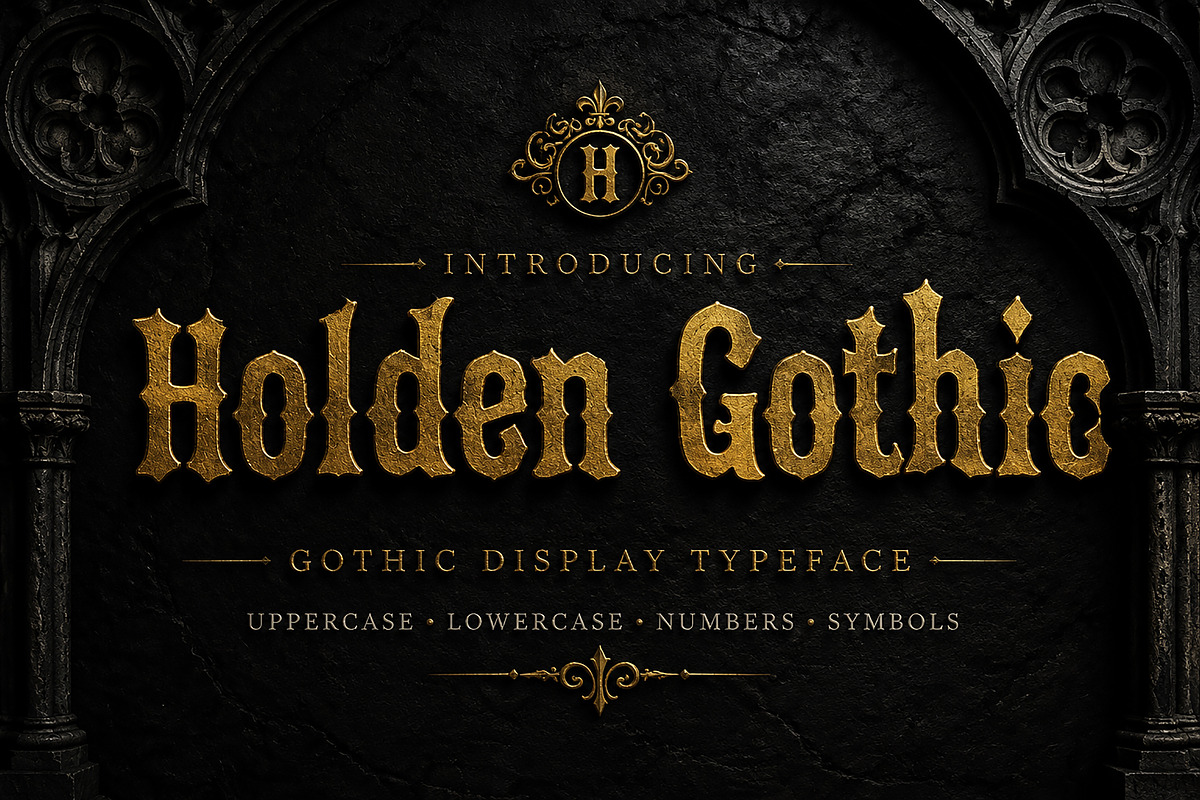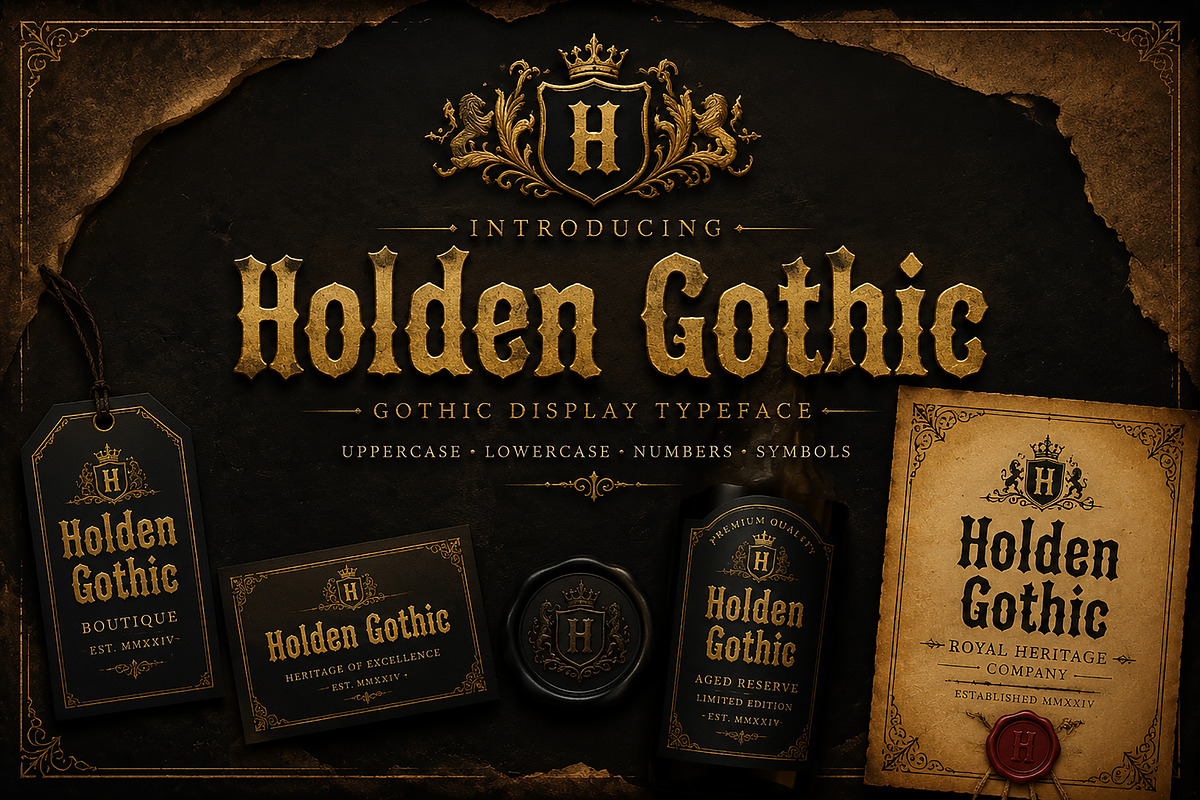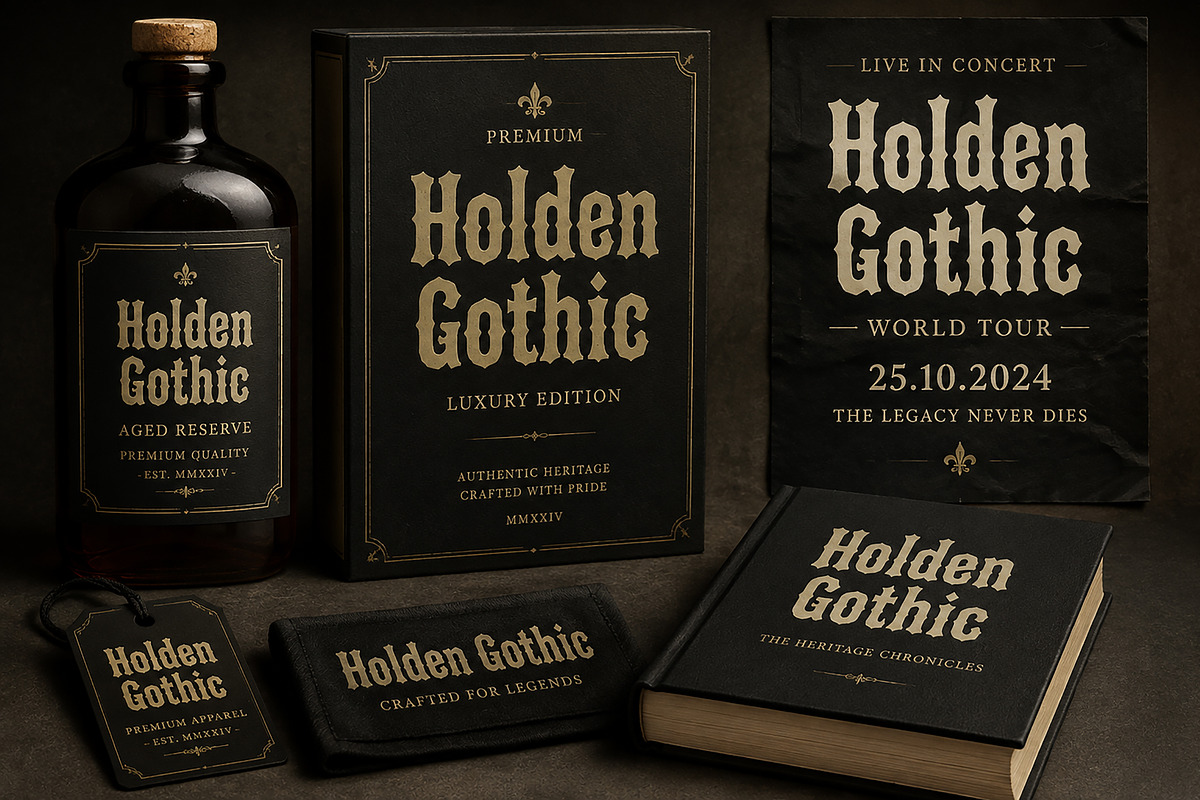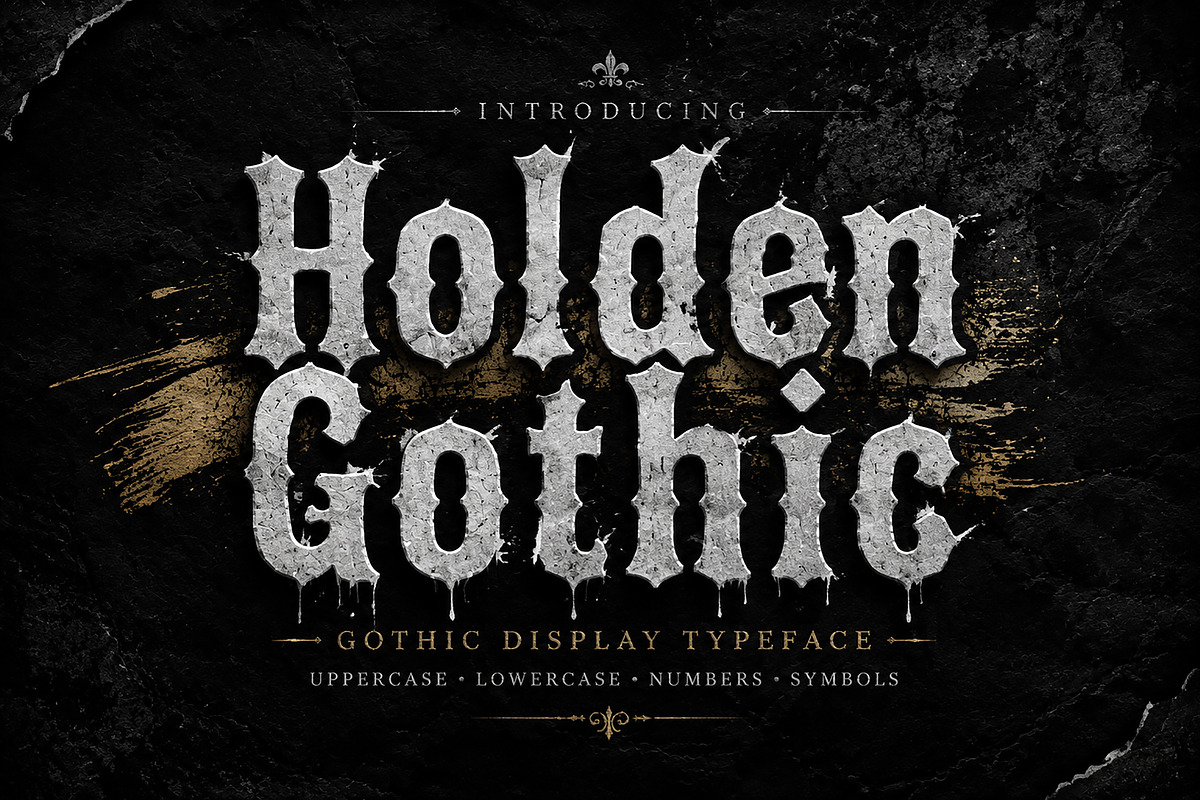
Holden Gothic – Blackletter Typeface
Holden Gothic – Bold Medieval Blackletter Typeface
Introducing Holden Gothic, a powerful Gothic Blackletter display font inspired by medieval lettering, vintage craftsmanship, and timeless historical aesthetics. Designed with strong, dramatic forms and a distinctive gothic personality, this typeface brings an authentic old-world character to your creative projects.
Holden Gothic is perfect for designers looking to create luxury branding, vintage logos, tattoo designs, album artwork, posters, apparel graphics, packaging, labels, and premium identity designs.
With its bold structure and classic blackletter style, Holden Gothic delivers a powerful visual impact while maintaining a refined and professional appearance.
Luxury Brand Identity
Vintage Logo Design
Gothic Branding
Tattoo Artwork
Rock & Metal Designs
Music Covers
Posters & Flyers
Clothing & Apparel Graphics
Labels & Badges
Medieval & Historical Projects
✔ Gothic Blackletter Display Typeface
✔ Strong and Bold Character Style
✔ Uppercase & Lowercase Letters
✔ Numbers & Symbols Included
✔ Perfect for Large Headlines & Display Use
Bring a bold medieval atmosphere and premium gothic style to your next creative project with Holden Gothic.